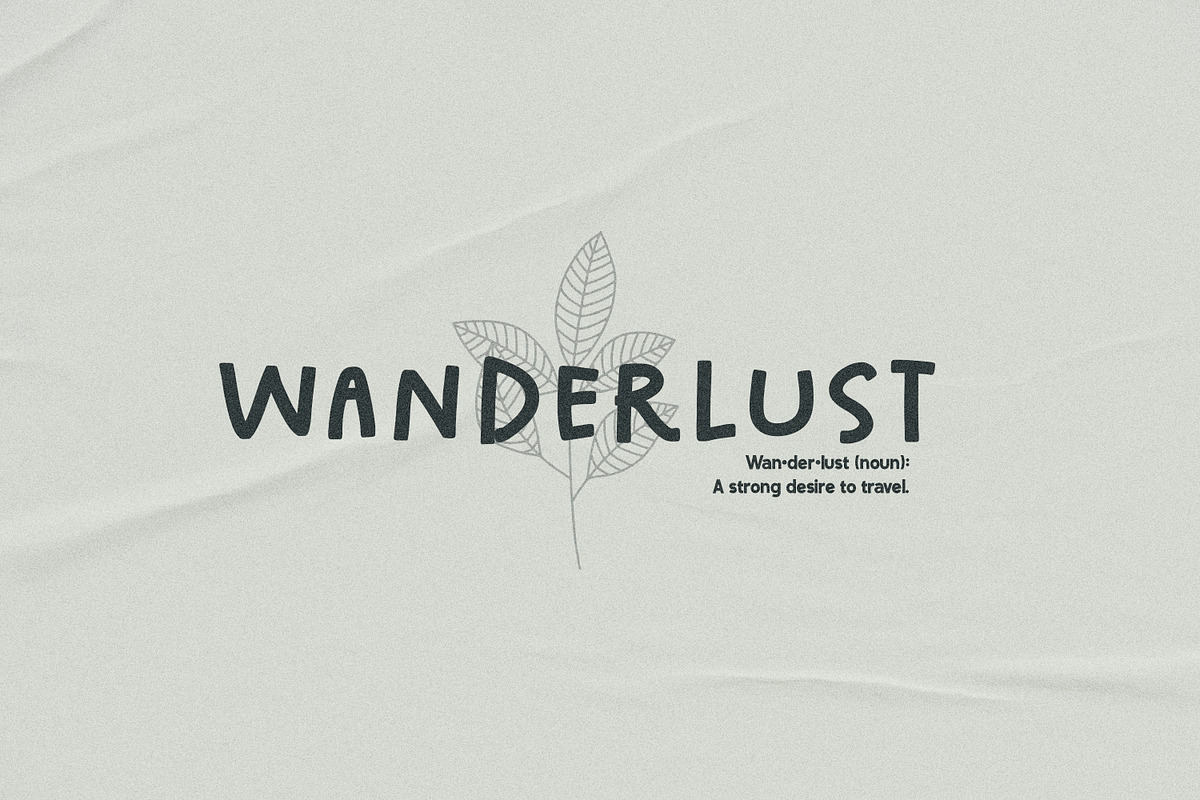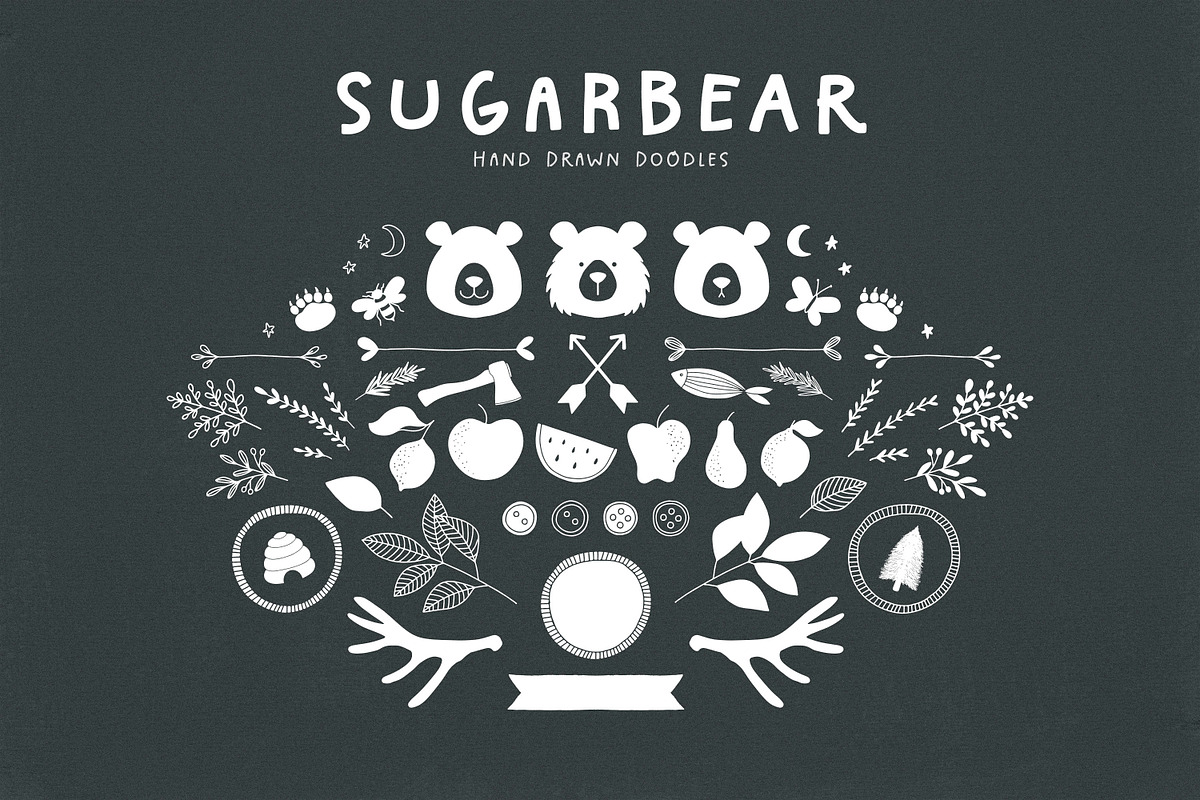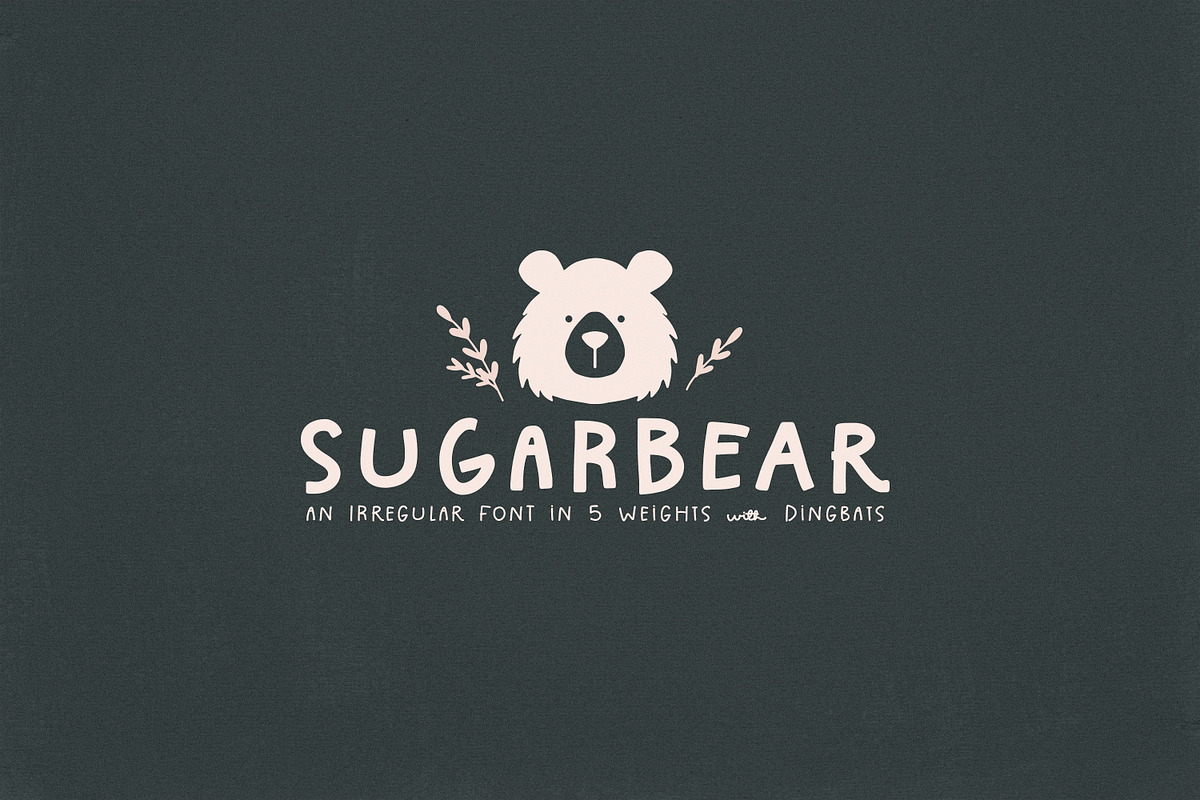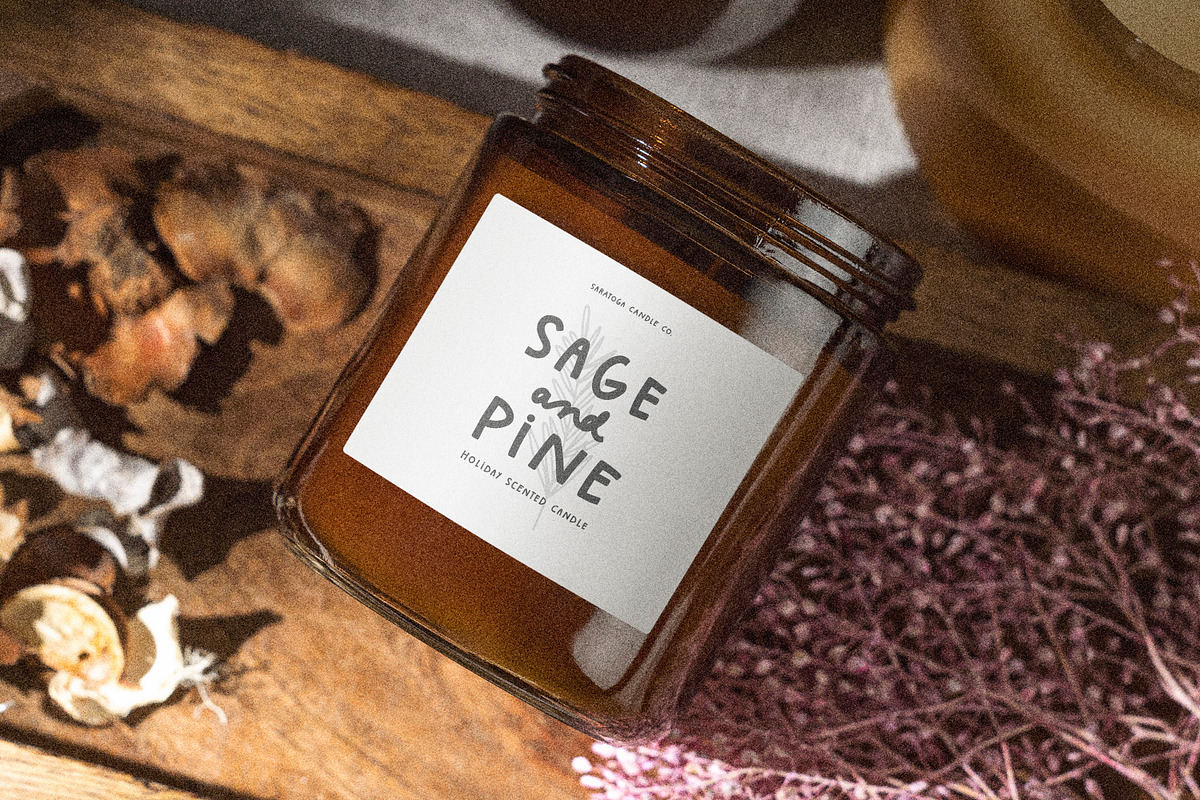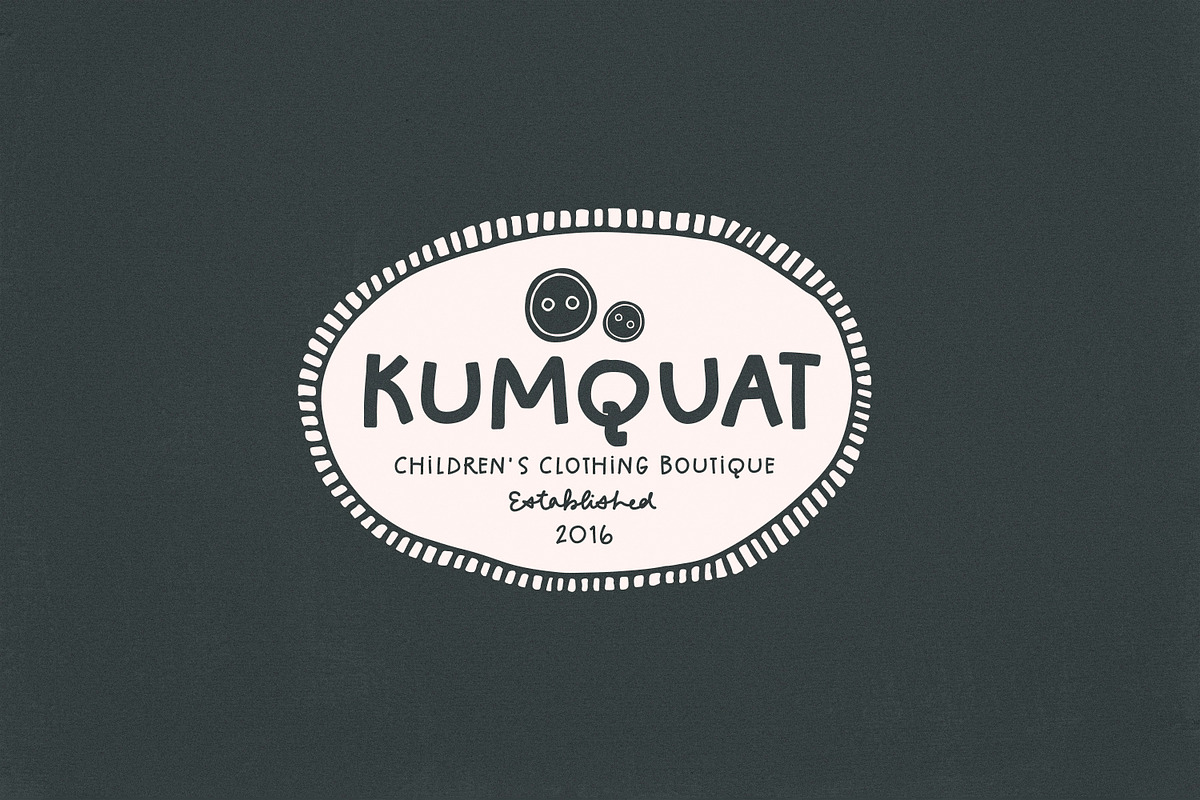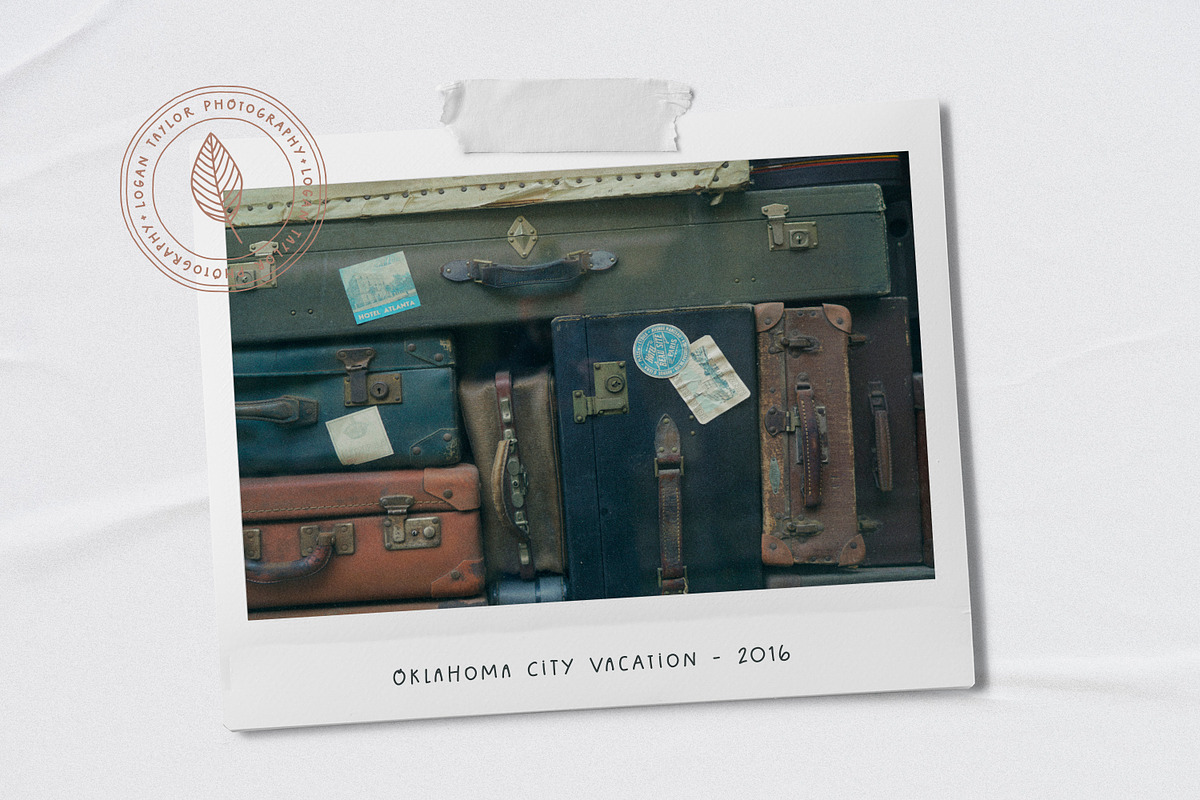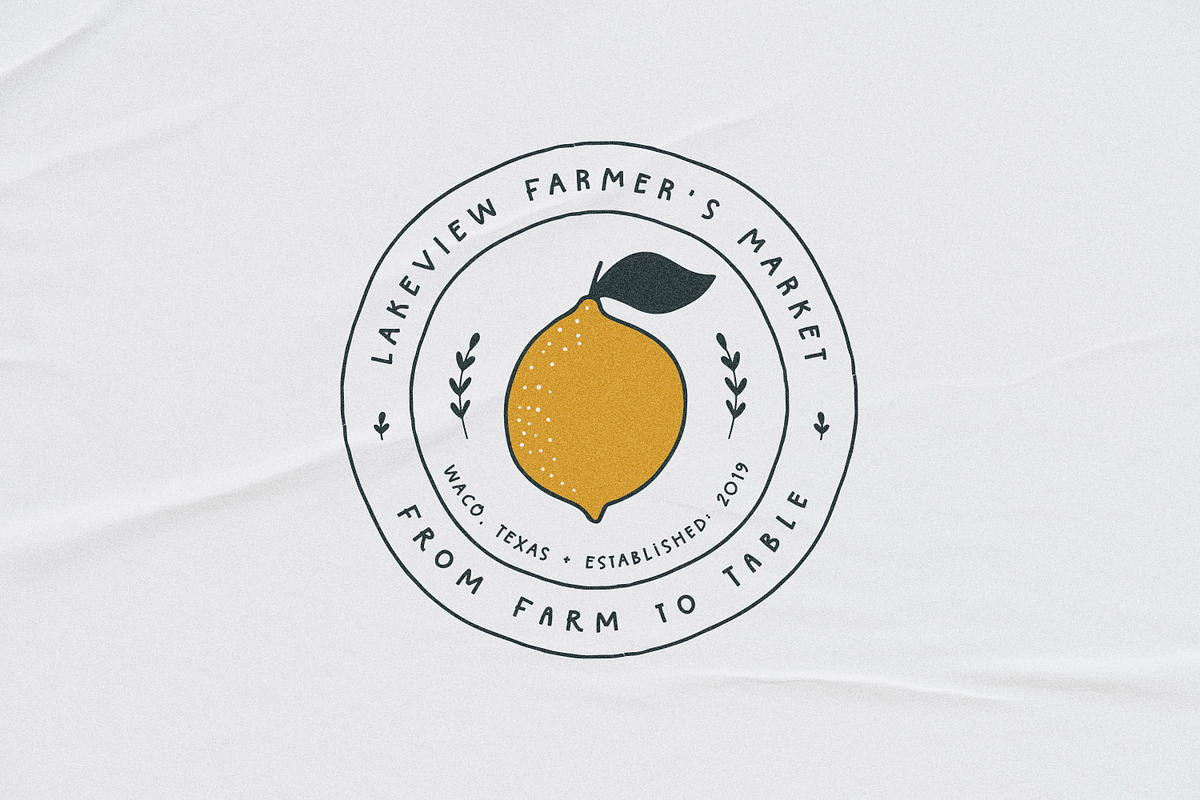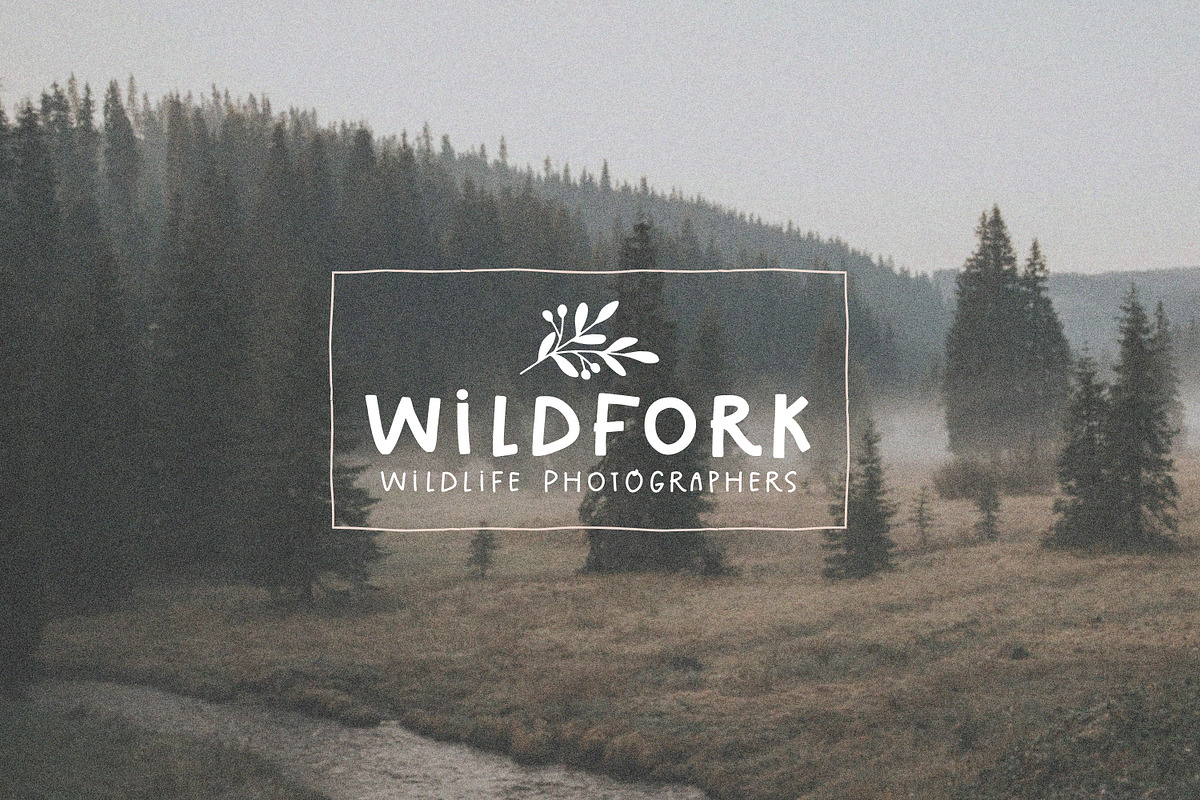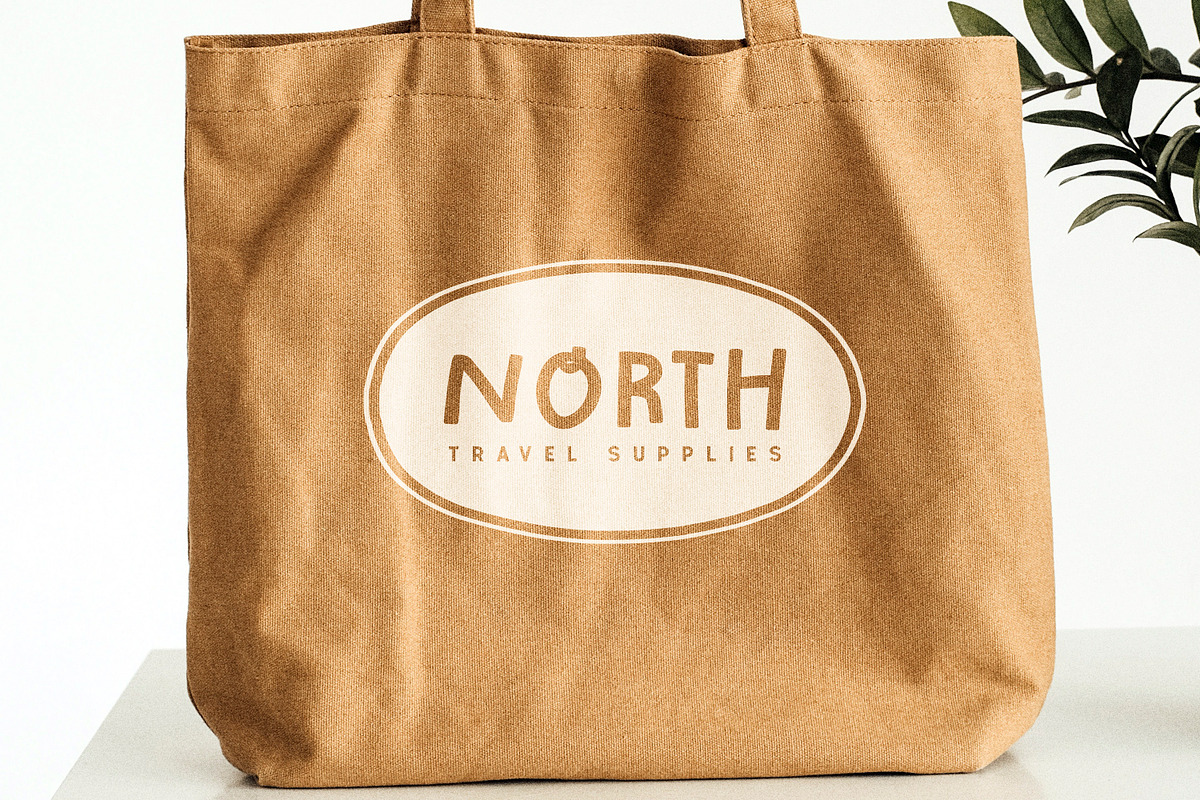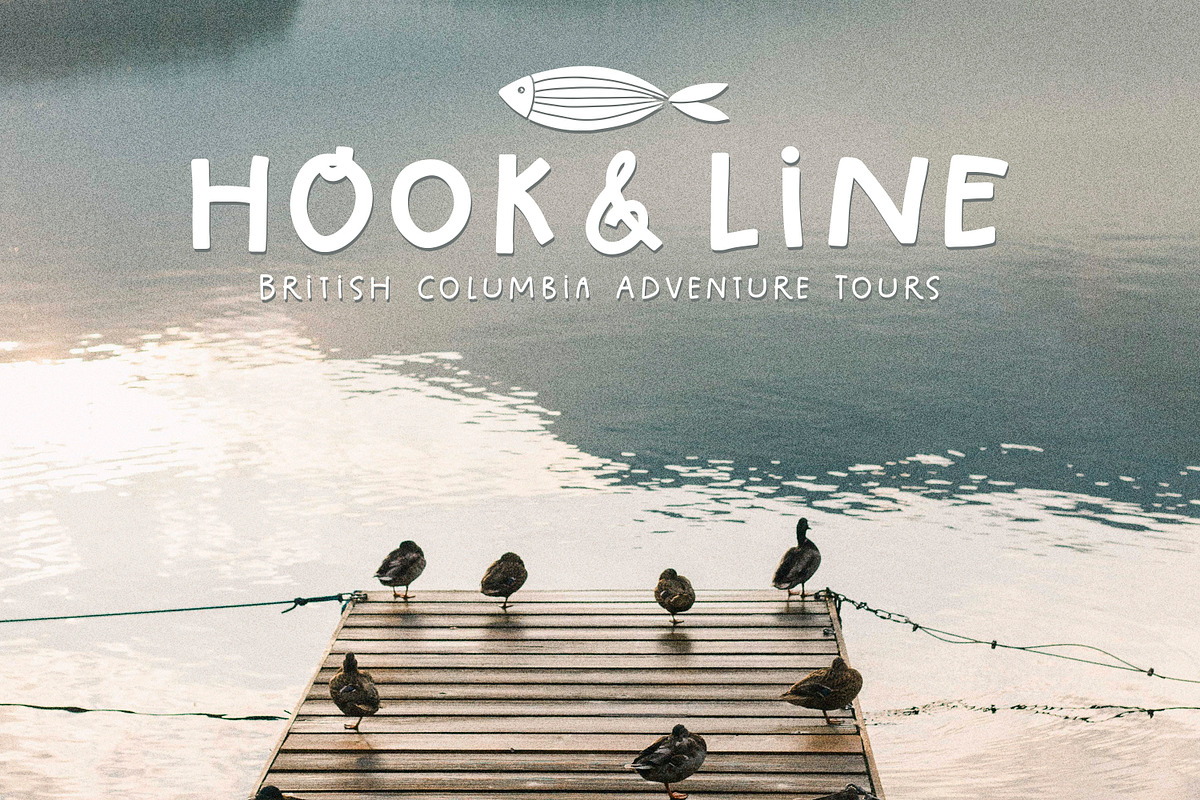
Sugarbear Type Family + Doodles
Presenting, Sugarbear, an irregular, handwritten font in multiple weights with charming doodles and catchwords. Sugarbear works so well on notebooks, children’s books, journals, labels, stickers, quotes, whimsical logos & sweet holiday products.
- Sugarbear Catchwords (within each OTF file)
- Please Note these fonts are handwritten and aren’t perfectly smooth, although they should work just fine with a Cricut or Silhouette machine.